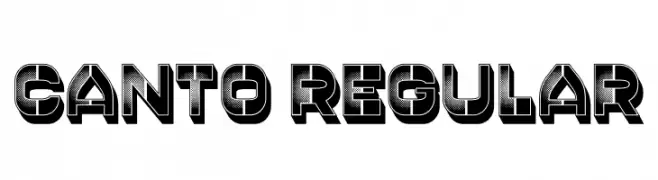
A bold, decorative font with a 3D effect and diagonal hatching.
An elegant script font with fluid, cursive lines and a natural handwriting style.
A playful, handwritten script font with smooth curves and a lively style.
A bold, playful font with rounded edges and a whimsical style.
A bold, playful font with a hand-drawn, textured appearance and cloud motifs.
A playful, bold handwritten font with rounded edges and a casual style.
A playful, whimsical font with exaggerated serifs and a hand-drawn look.
A bold, playful handwritten font with a casual and friendly style.
A bold, rounded font with a playful, outlined style.
A bold, dripping effect font with a playful and creative style.
A playful, bold font with rounded, bubbly characters ideal for fun designs.
An elegant and flowing script font with graceful curves and intricate loops.
A playful, cursive font with dynamic strokes and elegant flow.
A bold, geometric font with a modern, industrial design.
A playful, bold, and rounded font with a dynamic and friendly style.
A playful, handwritten-style font with bold, irregular strokes.
A bold, hand-drawn font with brush-like strokes and a dynamic, expressive style.
A playful, handwritten font with fluid strokes and dynamic style.
A playful and energetic script font with a hand-drawn appearance.
Elegant, connected cursive script with a handwritten feel.
A playful and fluid script font with smooth, connected letterforms.
A playful, handwritten font with fluid, connected strokes and a casual vibe.
A bold, elegant script font with high contrast and flowing, interconnected characters.
An elegant, flowing script font with graceful curves and sophisticated style.
A playful, handwritten font with fluid, connected letterforms.
A playful, handwritten font with smooth, flowing lines and rounded edges.
An elegant script font with intricate swashes and flowing lines.
A bold, cursive script font with a playful and energetic style.
A playful, handwritten font with a whimsical and approachable style.
A bold, dynamic script font with a casual, handwritten style.
A bold, playful handwritten font with thick strokes and rounded edges.